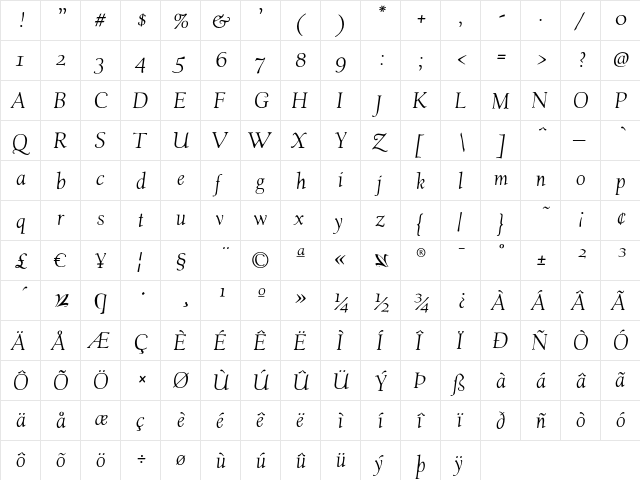
ClaremontOS Italic
Design Context for ClaremontOS Typeface
ClaremontOS takes a measured approach to typography — its balanced proportions and neutral character make it a reliable workhorse for both digital and print work. The dynamic lean of this cut emphasises speed and emphasis in any layout.
Pro Tip: Use ClaremontOS for emphasis, pull quotes, and subheadings where its slanted energy can add rhythm to the layout.